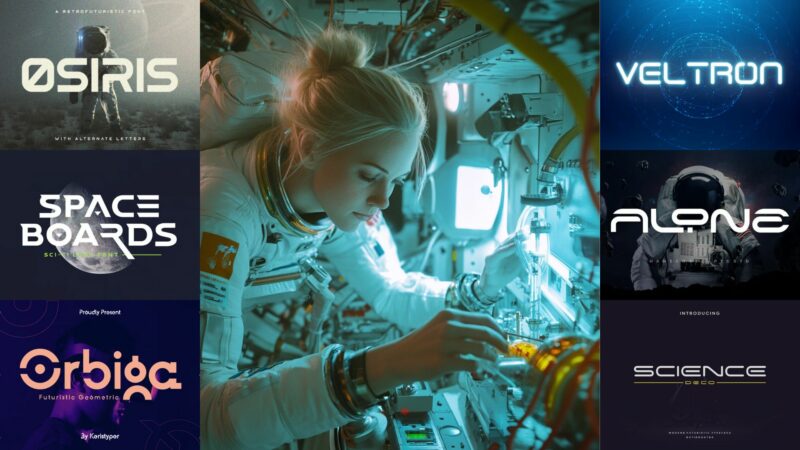
Whether you’re designing for a research institution, creating educational materials, or developing a tech startup’s brand identity, choosing the right science font can make or break your design’s credibility.
In this comprehensive guide, we’ll explore the best science fonts that will give your designs that perfect blend of technical accuracy and visual appeal. We’ll dive into what makes a font feel “scientific,” when to use them, and how to choose the perfect one for your project.
The Most Hi-Tech Science Fonts Right Now
Science – Futuristic Font
Science is a bold, angular typeface that embodies the essence of futuristic design. Its clean lines and geometric shapes make it perfect for tech-related projects, sci-fi themes, and modern branding that aims to convey innovation and forward-thinking concepts.
Science – A Futuristic Font
This version of Science offers a sleek, tech-themed aesthetic with its sharp edges and precise geometry. It’s ideal for creating eye-catching headlines in digital media, tech product branding, or any design that requires a cutting-edge, futuristic feel.
Aboro – Futuristic Science Font
Aboro is a versatile, variable font that pushes the boundaries of traditional typography. Its fluid, adaptable nature allows designers to create dynamic text effects, making it perfect for interactive designs, motion graphics, and innovative web experiences.
Jupiter Mission: A Science-Fiction Font
Jupiter Mission captures the essence of space exploration and sci-fi adventure. This sans-serif font features subtle curves and strong geometry, evoking a sense of technological advancement and interstellar travel. It’s perfect for movie posters, book covers, or any project with a cosmic theme. You might also like our Star Wars font generator.
Azuria – Technology Science Font
Azuria blends technology and elegance in a unique sans-serif design. Its clean lines and subtle tech-inspired details make it an excellent choice for modern logos, tech product branding, and scientific publications. The font exudes sophistication while maintaining a futuristic edge.
Helios Typeface
Helios is a rounded sans-serif typeface that balances friendliness with a modern aesthetic. Its soft curves and clean design make it versatile for both display and body text, perfect for brands aiming for a approachable yet contemporary look in their designs.
BlackSun
BlackSun is a sleek, modern sans-serif font that exudes sophistication and style. Its clean lines and balanced proportions make it ideal for high-end branding, fashion-related designs, and contemporary marketing materials that aim to convey elegance and modernity.
Veltron
Veltron is a futuristic sans-serif typeface that brings a bold, tech-forward look to any design. Its strong geometric shapes and sharp angles make it perfect for sci-fi themed projects, tech startups, and any brand looking to project a cutting-edge, innovative image.
TERBAANG – Space Font
TERBAANG combines geometric precision with a cosmic flair. This space-inspired font features unique cuts and angles that evoke the vastness of the universe. It’s ideal for astronomy-related designs, sci-fi book covers, or any project that aims to capture the wonder of space exploration.
VEGAS-X
VEGAS-X is a bold, display sans-serif font with a techno edge. Its striking design and futuristic aesthetics make it perfect for creating impactful headlines, poster designs, and branding for nightclubs, electronic music events, or tech-focused businesses.
Oldion
Oldion is a futuristic sans-serif font that draws inspiration from robotics and advanced technology. Its unique letterforms combine organic curves with mechanical precision, making it an excellent choice for AI-related projects, tech product branding, or science fiction book covers.
Raverion – Futuristic Font
Raverion is a dynamic, techno-inspired font that captures the energy of electronic music and futuristic design. Its bold, angular shapes and unique ligatures make it perfect for event posters, album covers, or any project that requires a strong, forward-thinking visual impact.
CUDA Font
CUDA is a decorative font with a strong futuristic flair. Its distinctive letterforms combine sharp angles with smooth curves, creating a unique and eye-catching typography. This font is ideal for tech logos, sci-fi themed designs, or any project that aims to stand out with a bold, futuristic look.
Deltha – Modern Font
Deltha is a sleek, modern sans-serif font that seamlessly blends tech aesthetics with sci-fi inspiration. Its clean lines and subtle futuristic touches make it versatile for various applications, from corporate branding to interface design for cutting-edge tech products.
Whether you’re designing for a cutting-edge research facility or creating educational materials for the next generation of scientists, choosing the right science font can help establish credibility, improve comprehension, and inspire innovation.